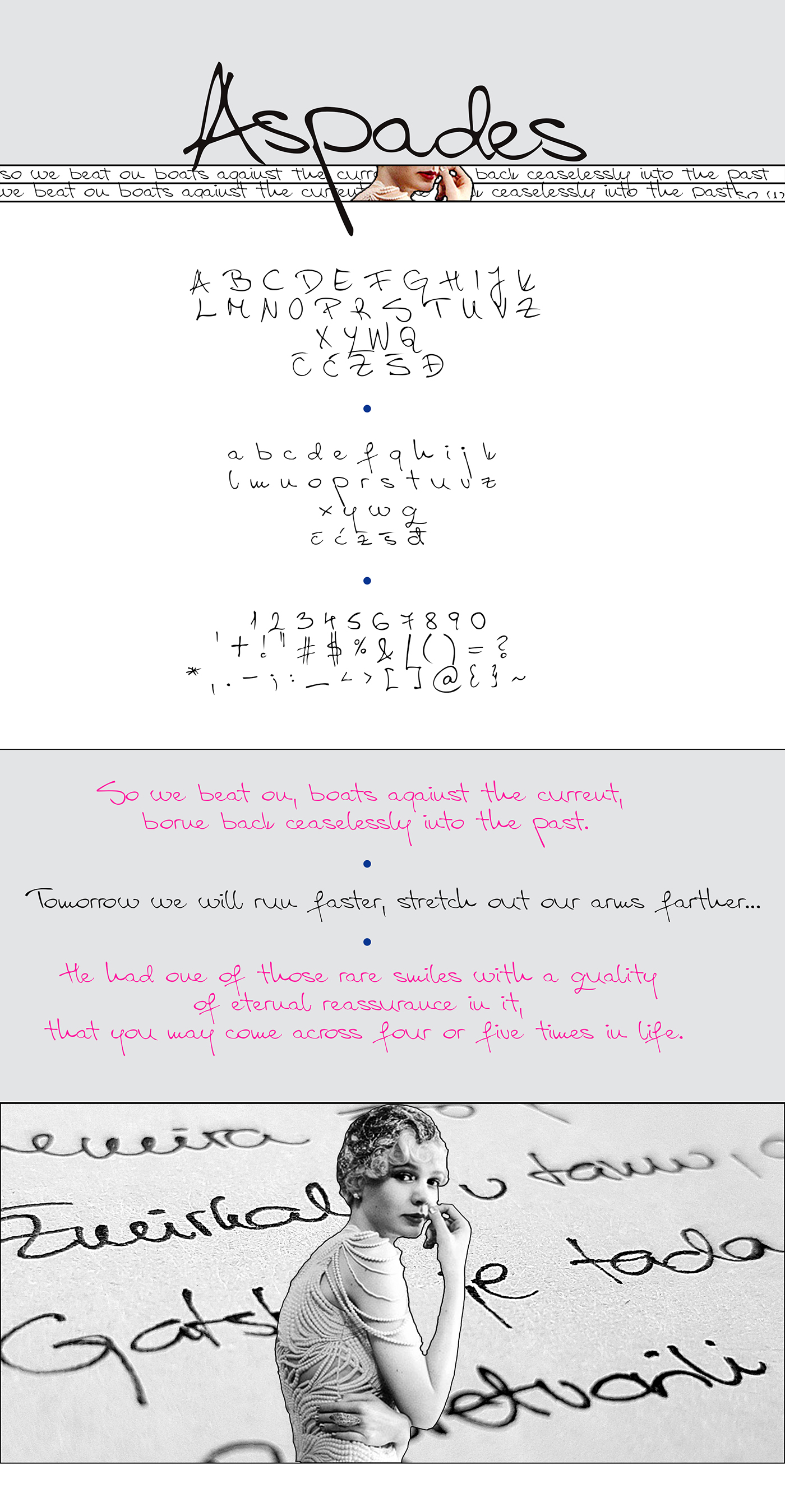
Aspades Handwritten Font
Hello world..!! this is Aspades Font. Aspades is a script handwritten. Aspades was designed by Ana Svalina. Aspades is beautiful handwritten font. With modern script style this font will perfect for many different project ex: quotes, blog header, poster, wedding, branding, logo, fashion, apparel, letter, invitation, stationery, etc.